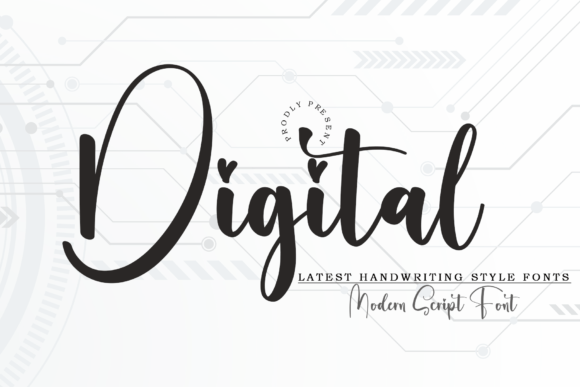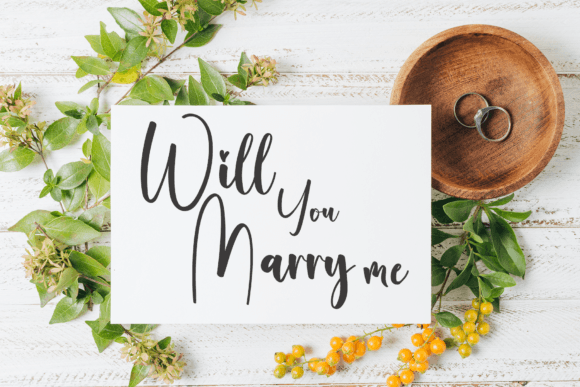
About Digital Font
“Digital” is a refined and beautiful handwritten font characterized by an elegant touch, making it an ideal choice for a variety of creative projects. Its neat and distinct style lends itself well to different applications, allowing you to infuse a touch of sophistication into your favorite endeavors.
The timeless quality of “Digital” sets it apart, making it a versatile font that can stand the test of time across diverse design landscapes. Its elegance ensures that it can be seamlessly integrated into various projects, from digital to print media, enhancing the overall visual appeal.
Whether you’re working on branding, invitations, social media posts, or any other project, “Digital” brings a sense of clarity and beauty to your designs. The neat handwritten aesthetic adds a personal touch, creating a connection with your audience and making your projects visually striking.
Imagine “Digital” gracing elegant invitations, where its refined script sets the tone for a sophisticated event. Picture it on digital platforms, adding a touch of class to your social media posts and logos. Whether used for advertisements, product designs, or stationery, “Digital” becomes a reliable and stylish choice.
In the realm of design, “Digital” becomes more than just a font; it’s a design element that elevates your projects to new heights. Its distinct and timeless style becomes the cornerstone of spectacular designs, making your creations memorable and impactful.
Whether you’re a graphic designer seeking a font that combines neatness with elegance or an individual embarking on a creative project, “Digital” invites you to fall in love with its sophisticated charm. Let it be the key element that transforms your favorite projects into visually spectacular works of art.